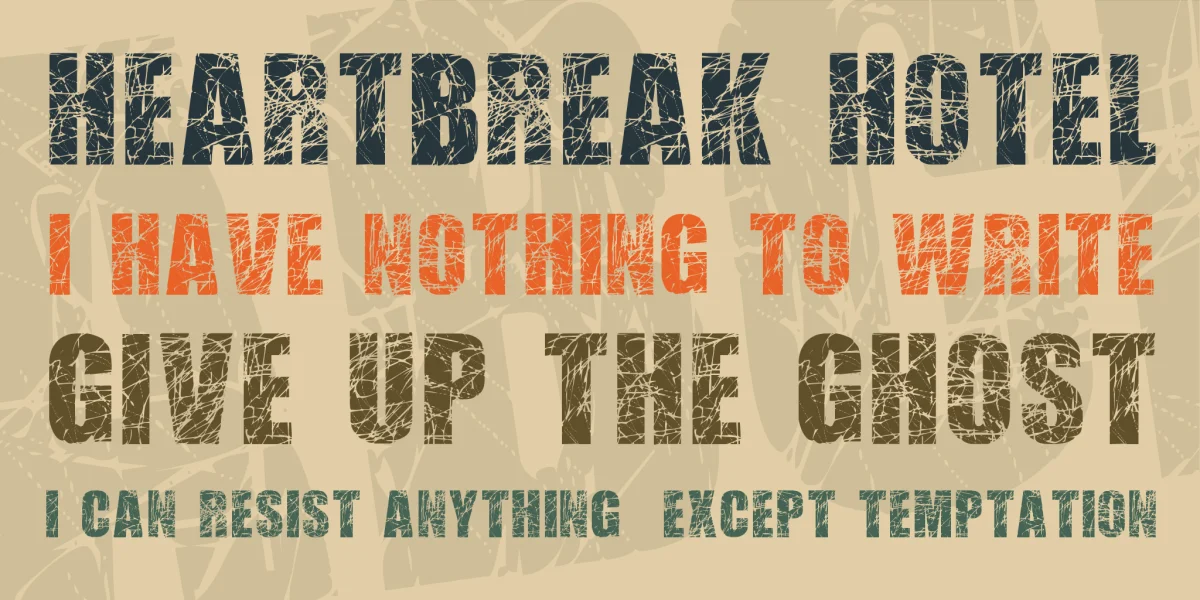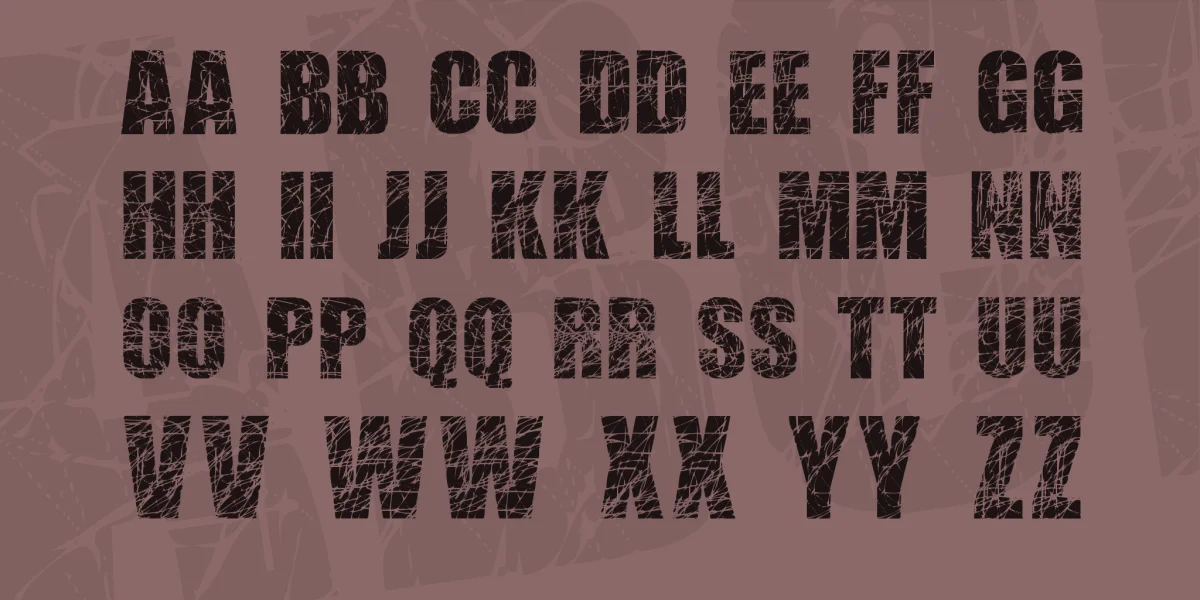
The Scratched Letters font is a display font. It is based on the Impact font but I scribbled on the letters with a white brush on Microsoft Paint. It comes with A-Z letters only because this font is a large file. This font is in the public domain;